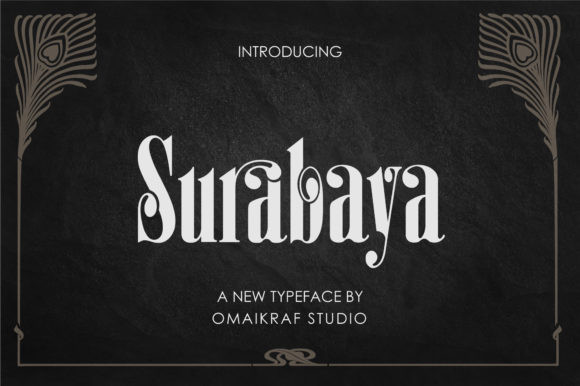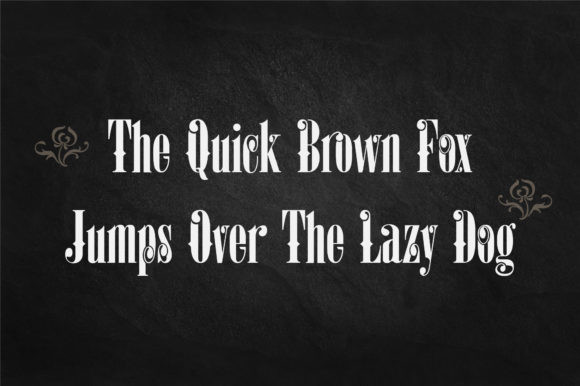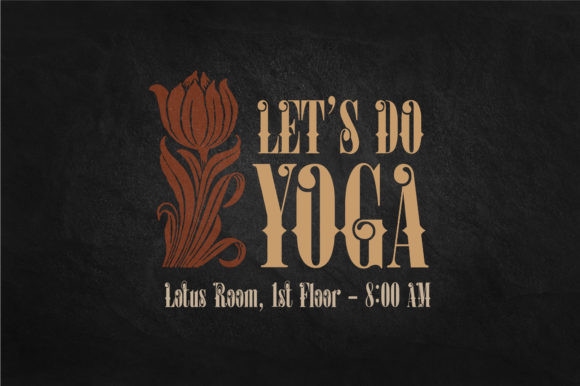
Surabaya Font
Surabaya is an incredibly unique and elegant display font. Masterfully designed to become a true favorite, this font has the potential to bring each of your creative ideas to the highest level!